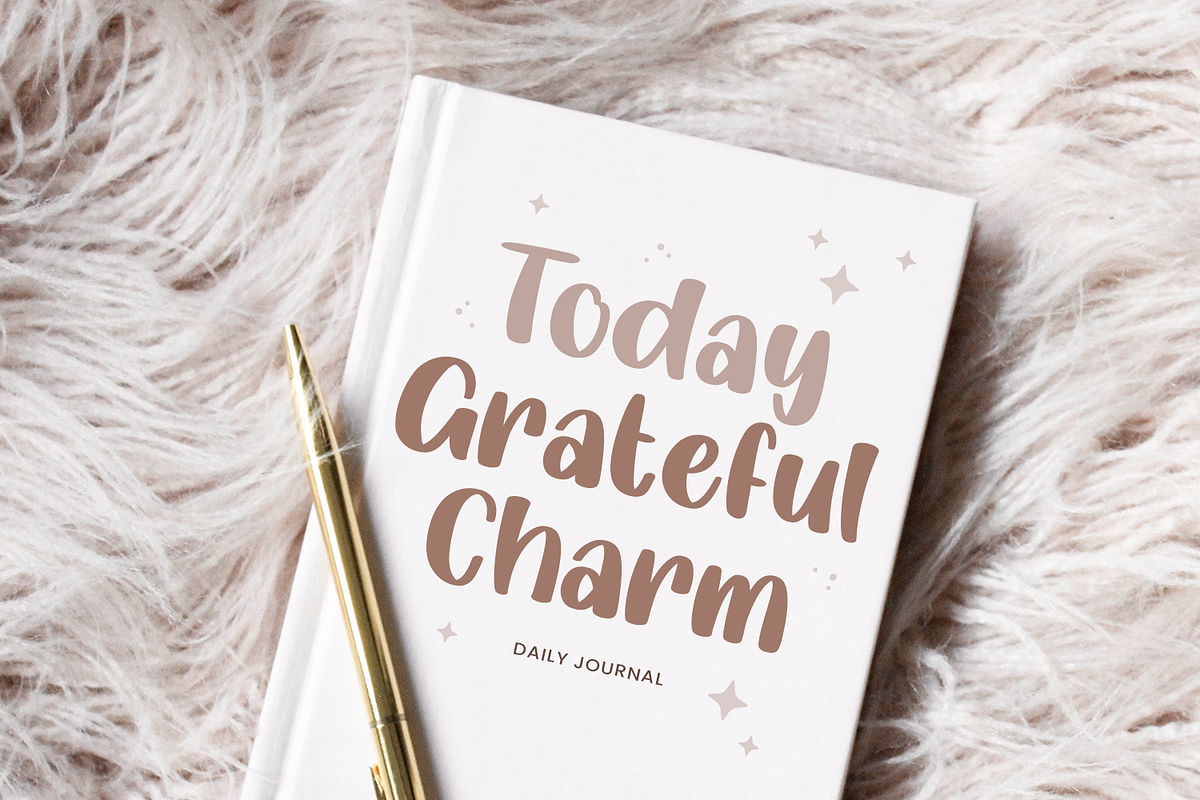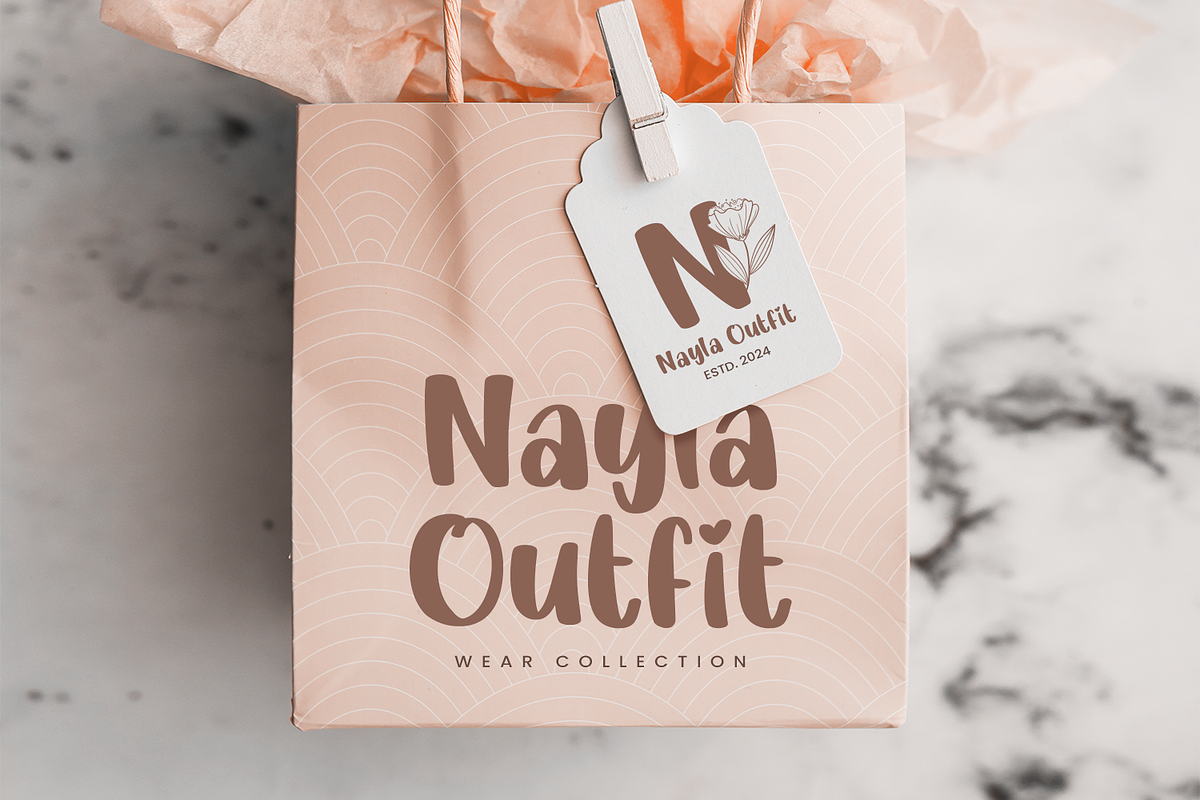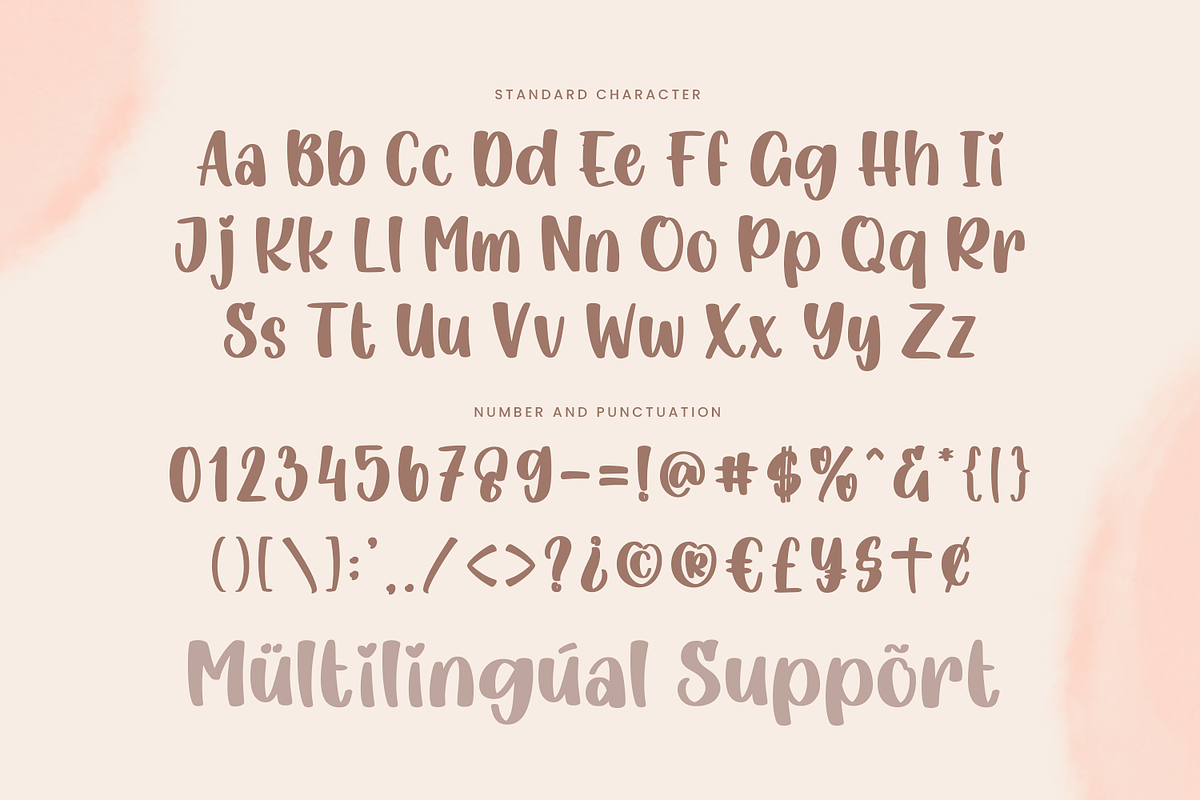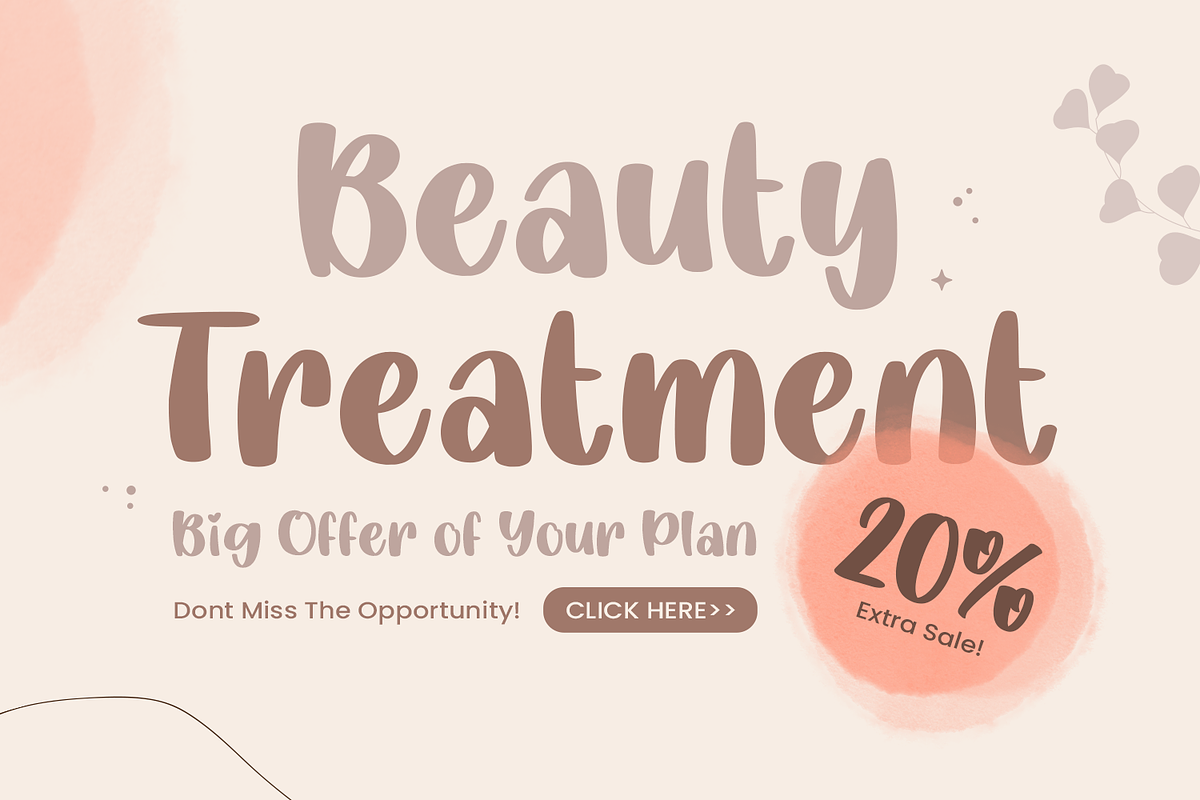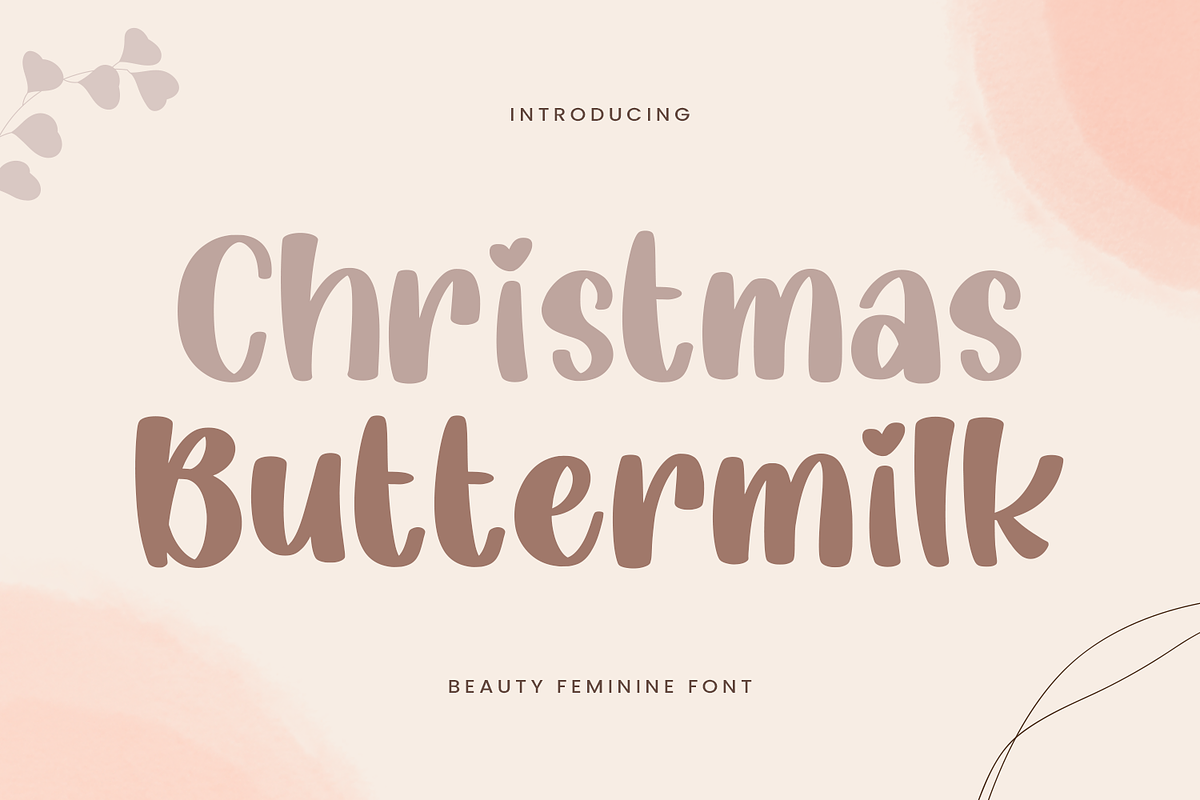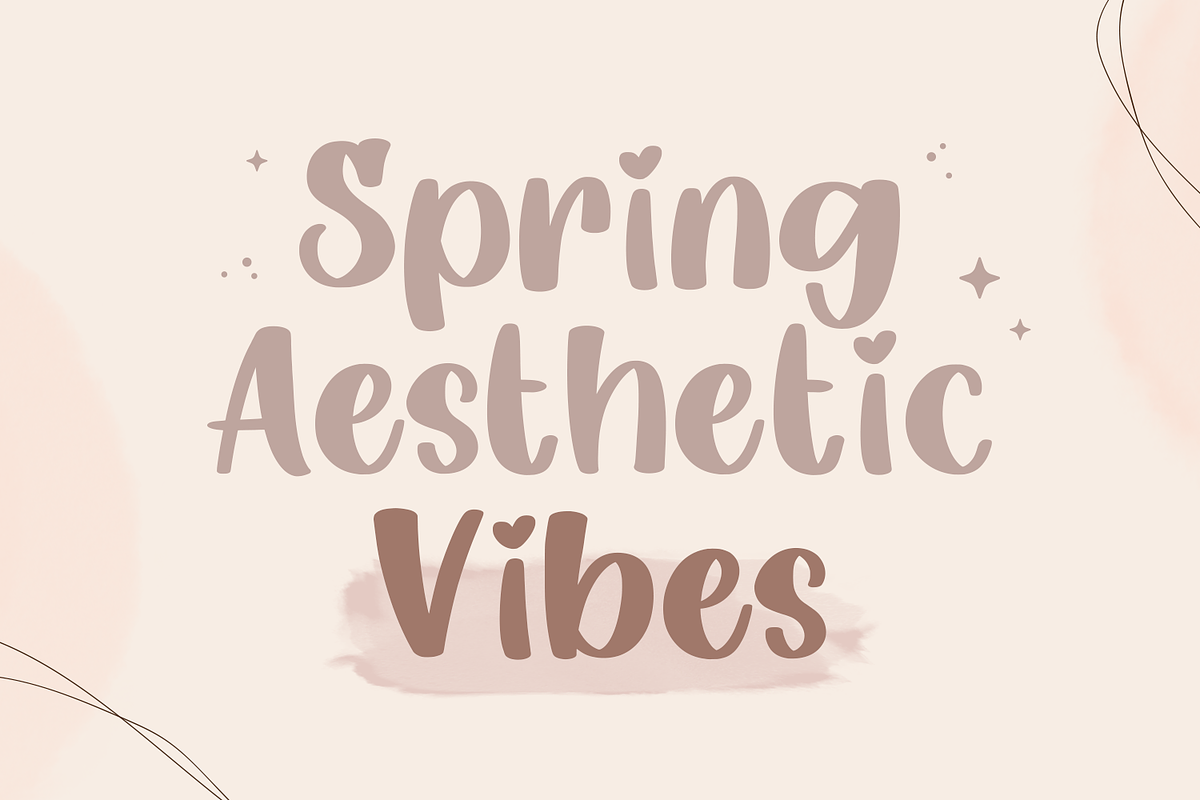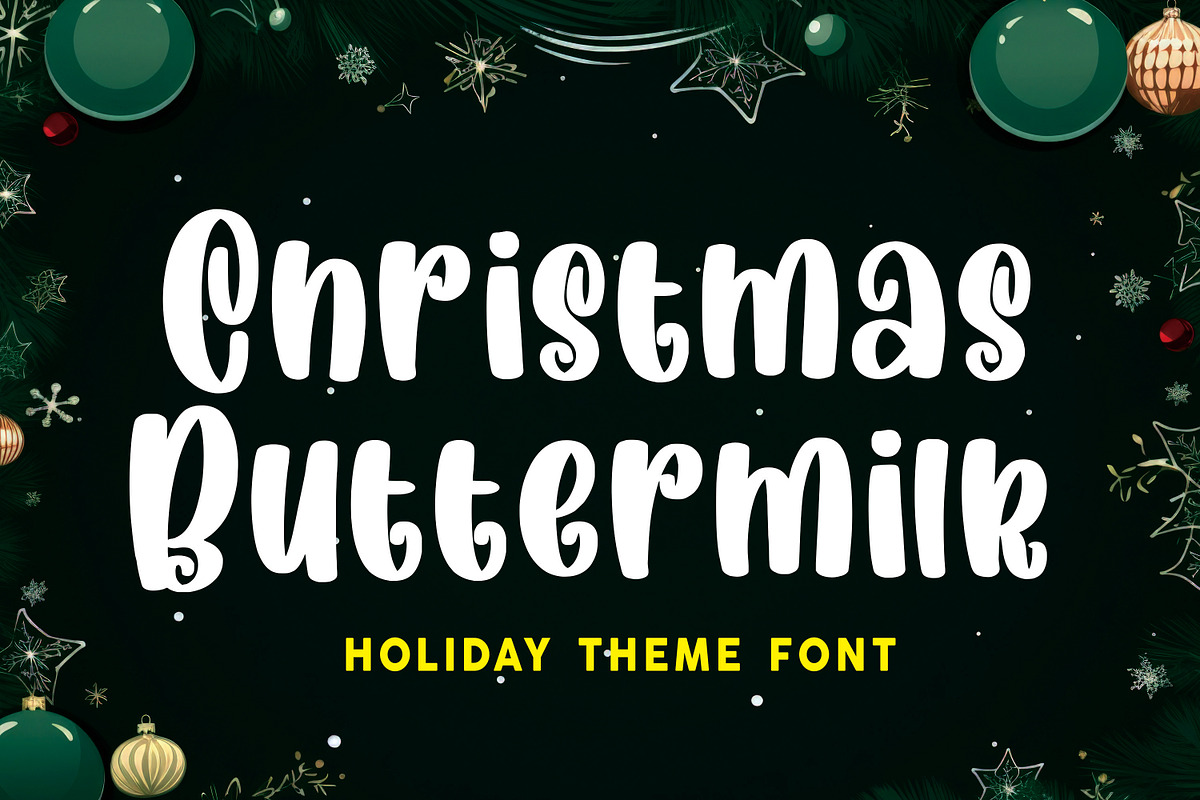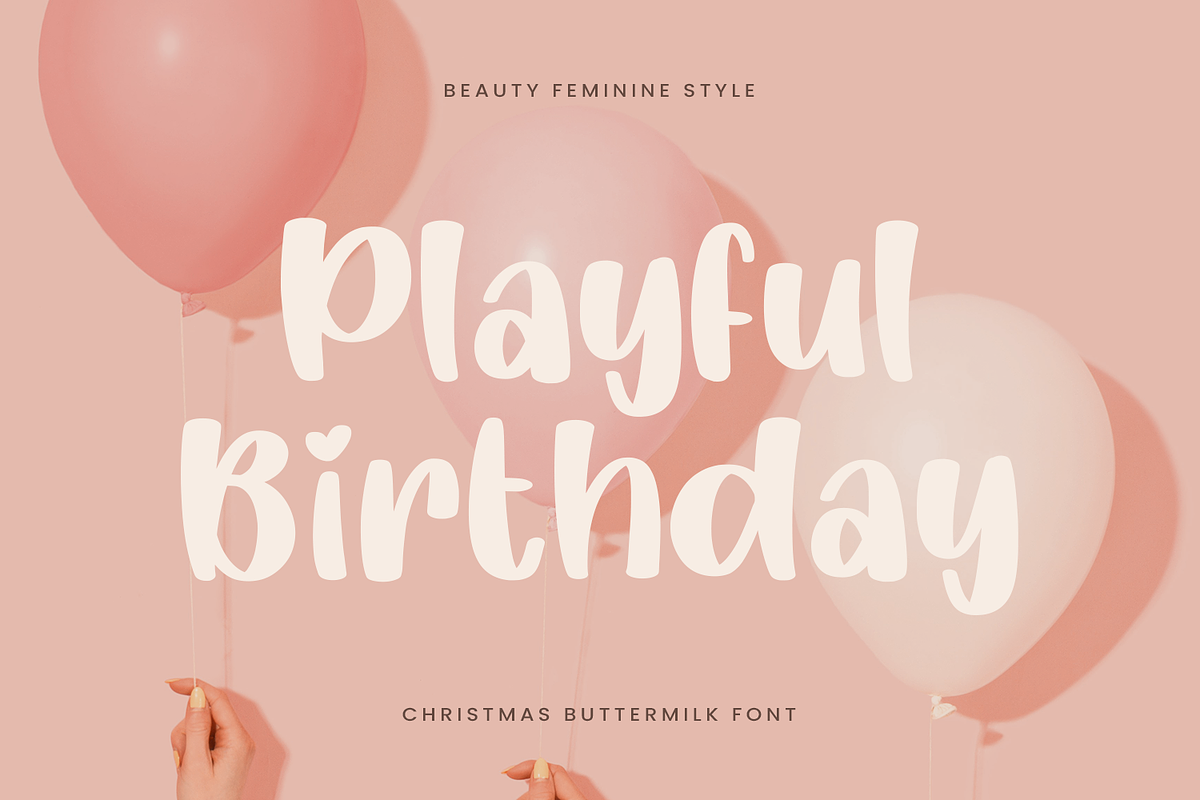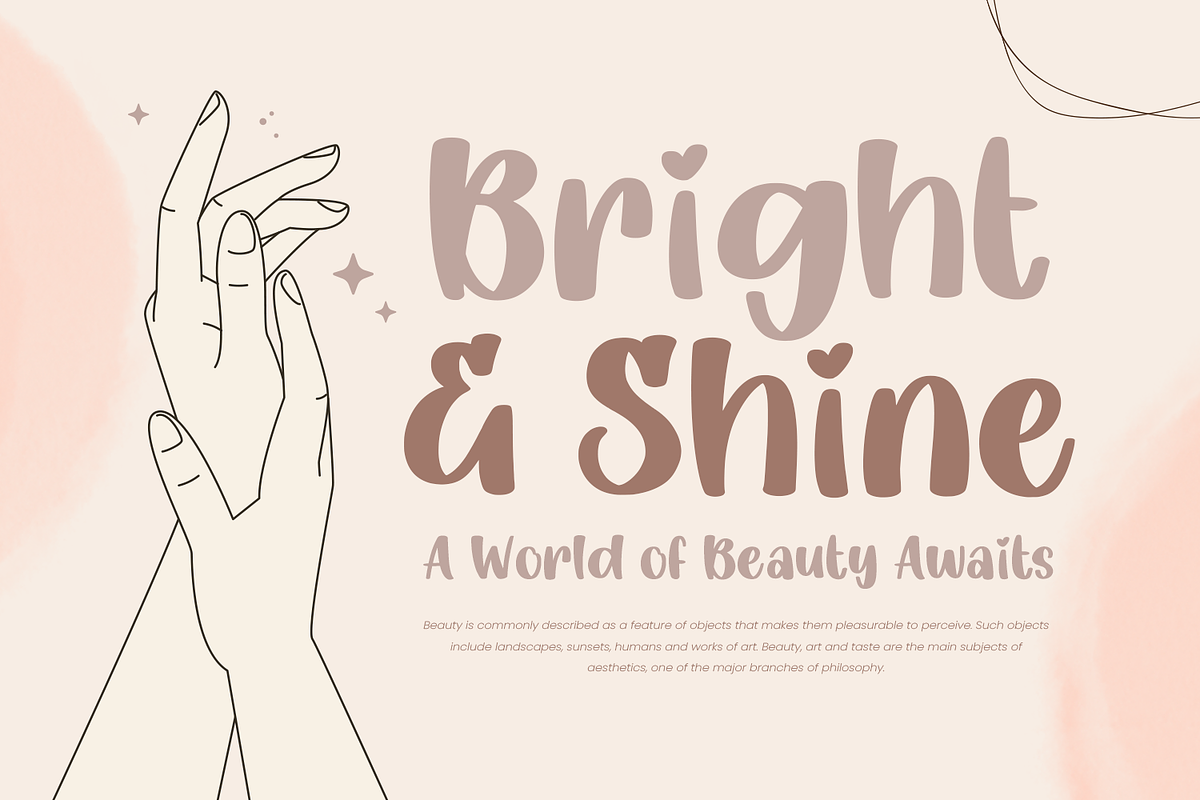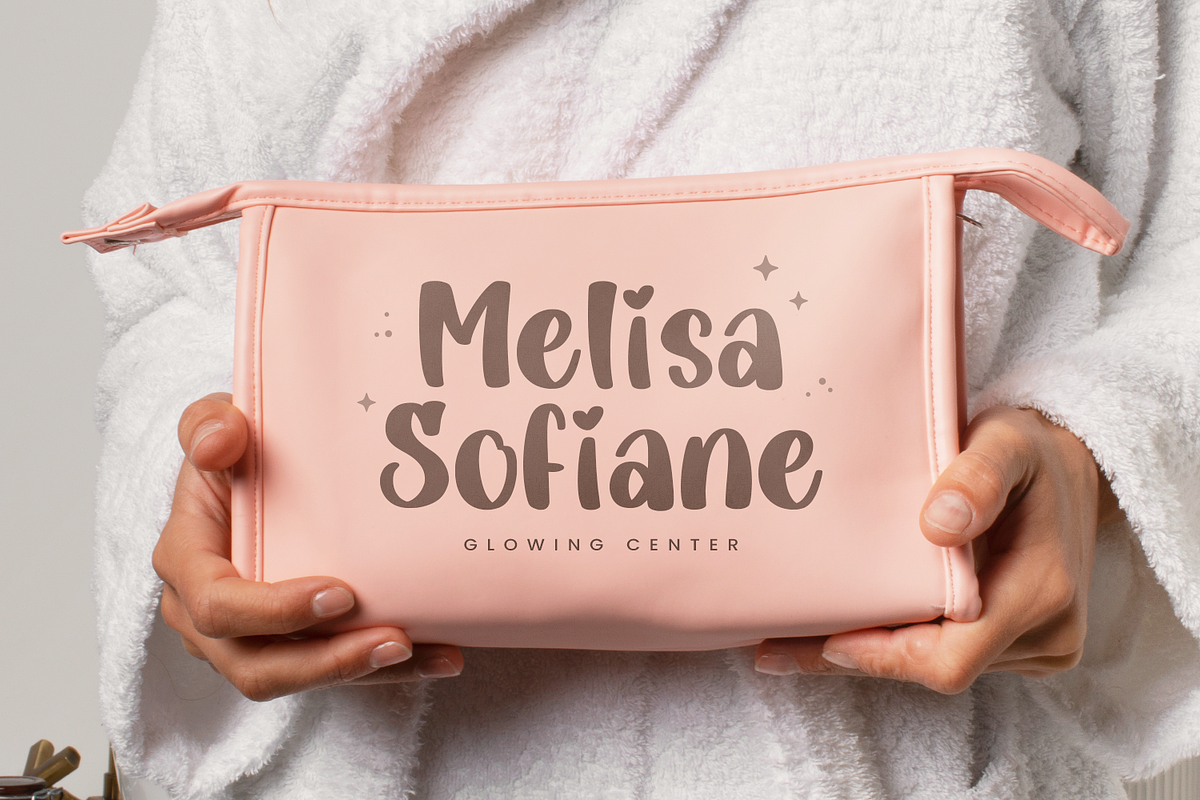
Christmas Buttermilk
Introducing Christmas Buttermilk, a delightful handwritten script font that embodies the warmth and joy of the holiday season. With its elegant flow and charming beginning and ending swashes on each character, this font is perfect for adding a magical touch to your festive projects. From Christmas cards to wedding invitations, birthday greetings, and Thanksgiving decor, Christmas Buttermilk infuses your designs with a cozy, hand-crafted feel.
Ideal for a variety of creative themes, Christmas Buttermilk shines in seasonal projects like Christmas crafts, Easter decorations, and springtime designs, as well as summer, autumn, and Thanksgiving celebrations. Its smooth, flowing style brings a personal and inviting touch to everything from Cricut and embroidery projects to holiday lettering and SVG creations. The whimsical flourishes make each word come alive, adding a special charm to your designs.
With PUA encoding, Christmas Buttermilk ensures easy access to a range of alternate characters and decorative elements, giving you the freedom to customize your designs with ease. Create stunning holiday banners, personalized gift tags, or elegant wedding invitations that capture the essence of the season. Whether you're working on a winter wonderland scene or a heartfelt greeting, this font’s graceful script style adds an extra layer of beauty to every project.
Let Christmas Buttermilk bring warmth and elegance to your next creative endeavor! Add this lovely script font to your collection and watch as it transforms your designs into heartfelt holiday treasures. Perfect for capturing the spirit of Christmas and beyond, Christmas Buttermilk is the ideal choice to make your projects truly unforgettable.
- Standard & Multilingual glyphs.
- Fonts include multilingual support for; Afrikaans, Danish, Dutch, French, German, Indonesian, Irish, Italian, Norwegian, Portuguese, Scottish, Spanish, Swedish, Swiss etc.